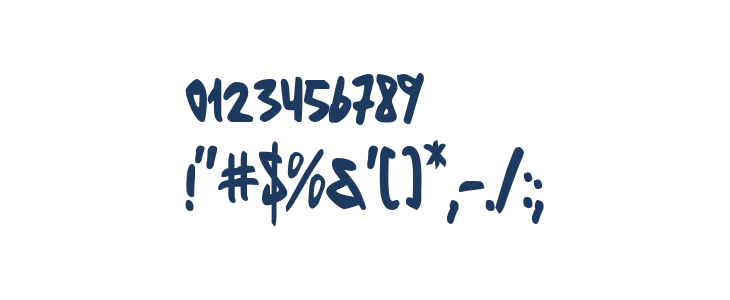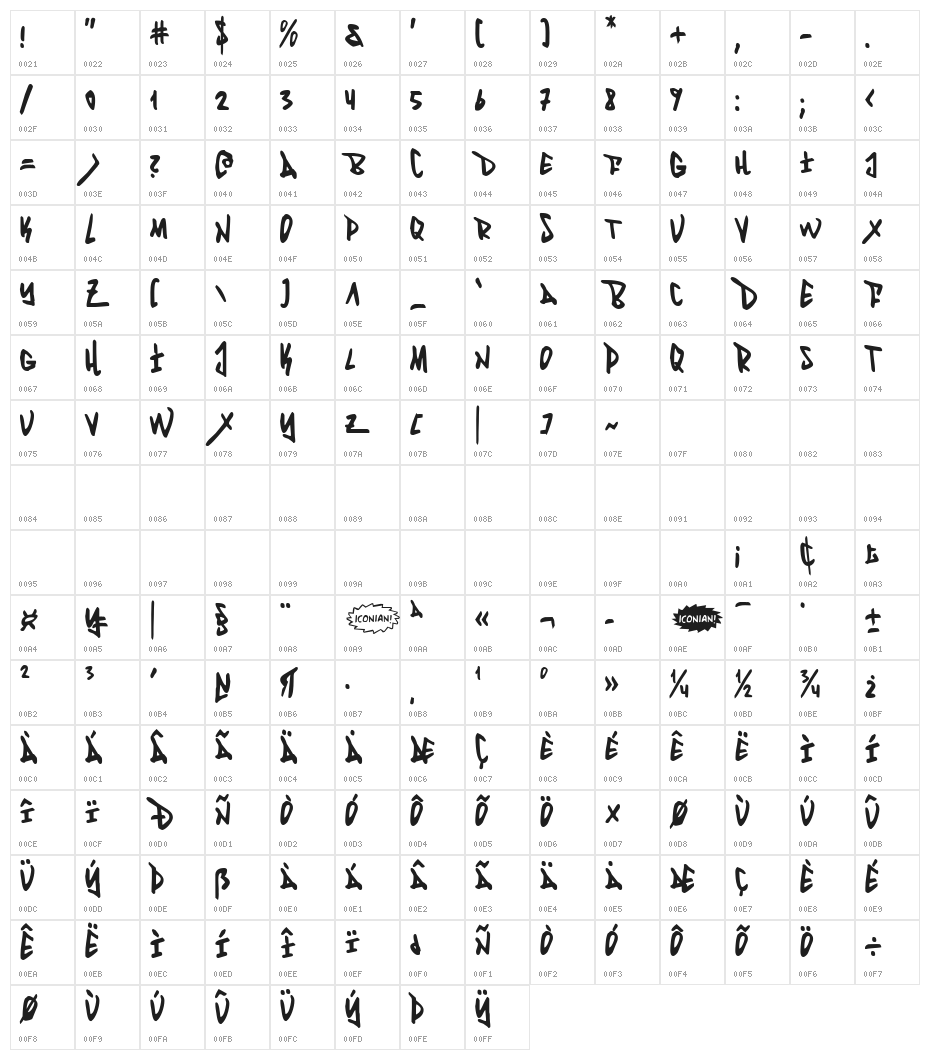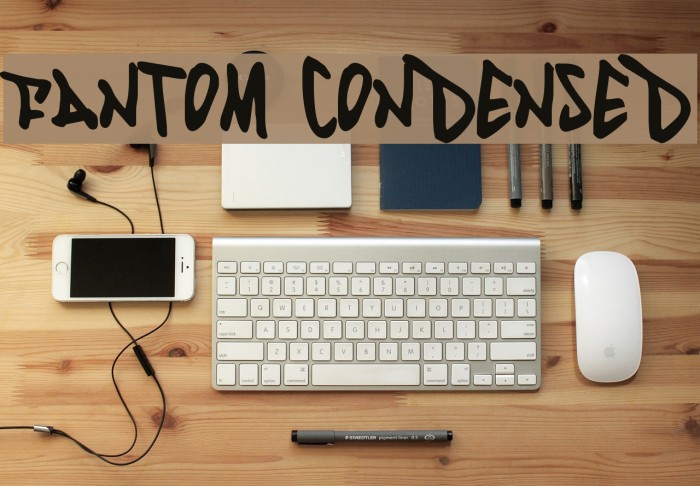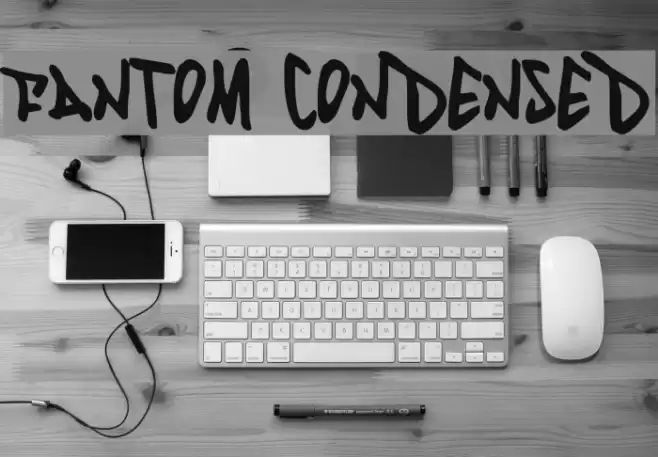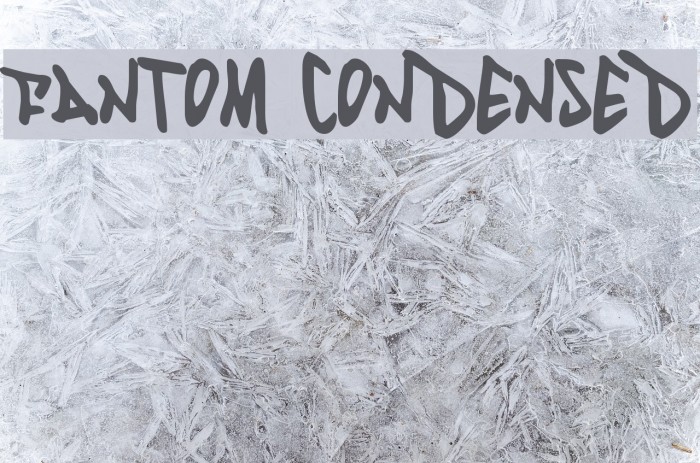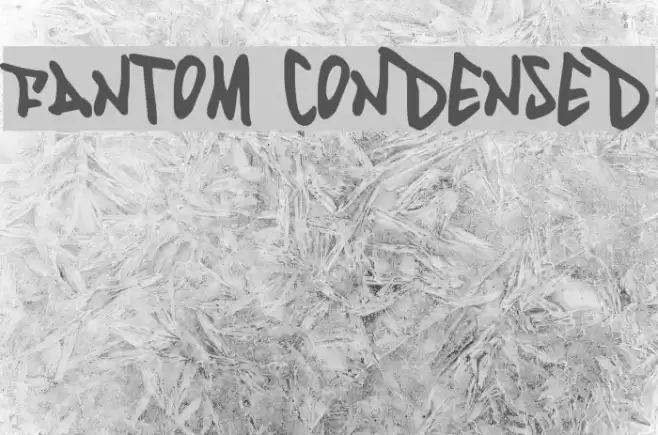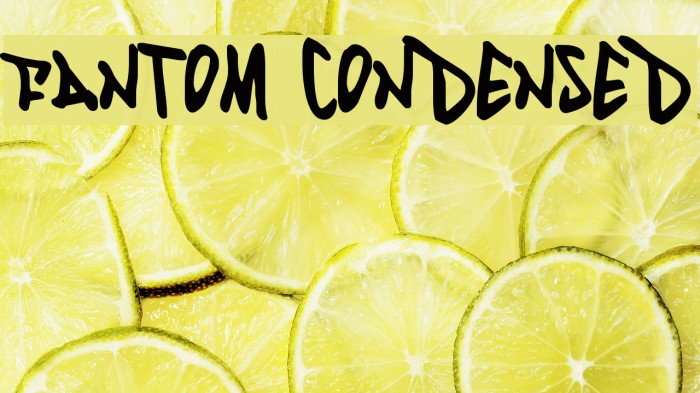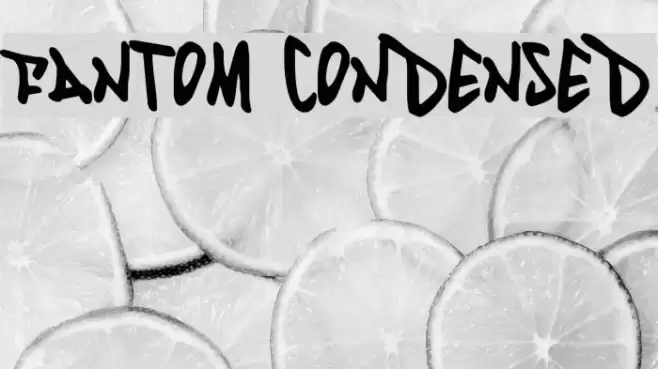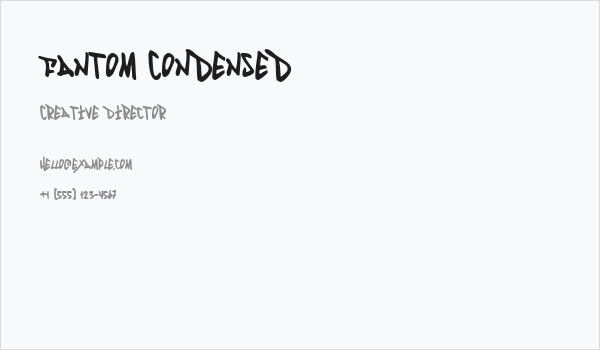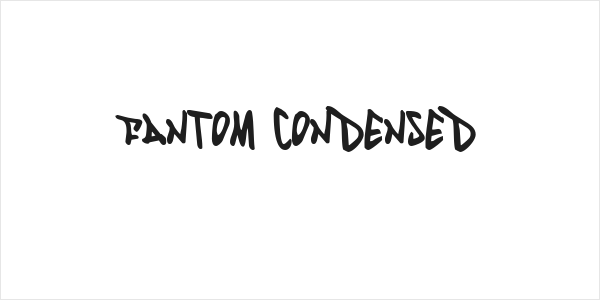
Fantom Condensed Font
Fantom Condensed Description
This font features a bold and dynamic style with a condensed form, giving it a striking and impactful appearance. The letters are crafted with a brush-like texture, adding a sense of movement and energy. The uppercase and lowercase characters maintain a consistent style, with sharp angles and a slightly irregular baseline that enhances its hand-drawn aesthetic. The numerals and special characters follow the same design principles, ensuring uniformity across all elements. This font's unique style makes it suitable for projects that require a bold and artistic touch.